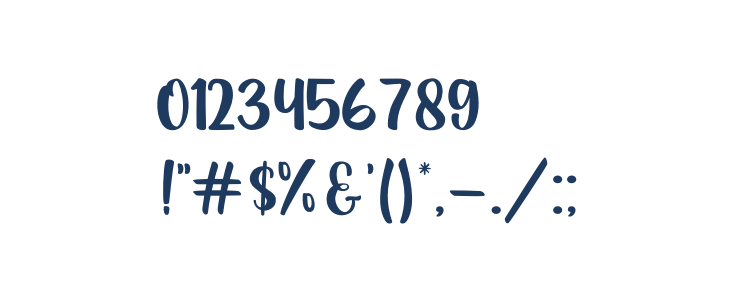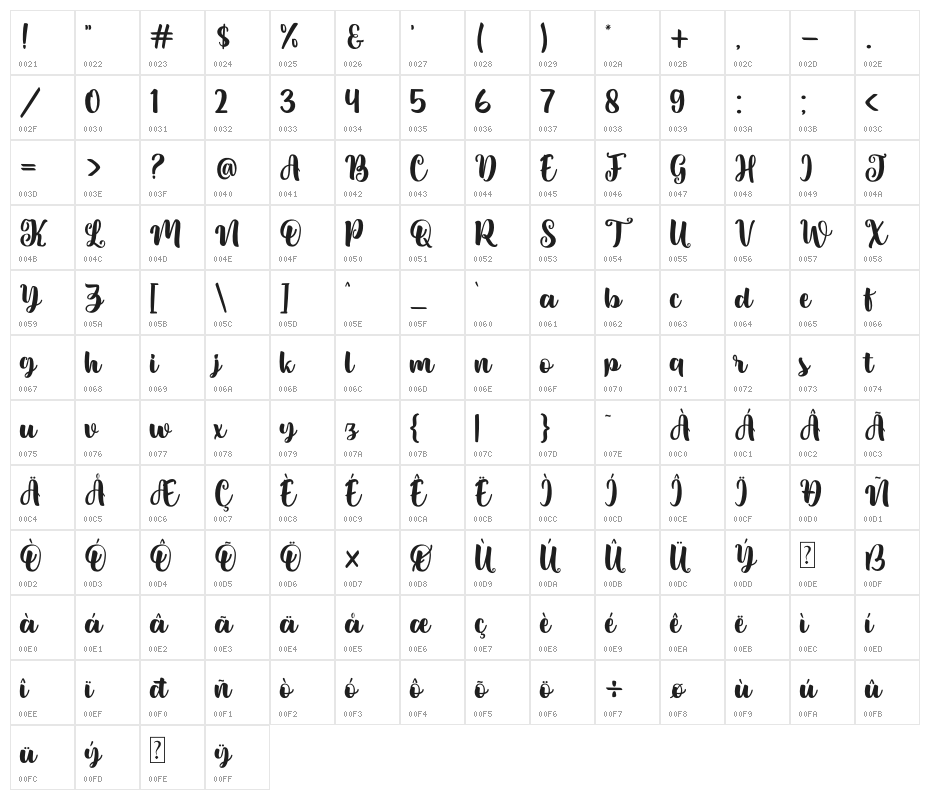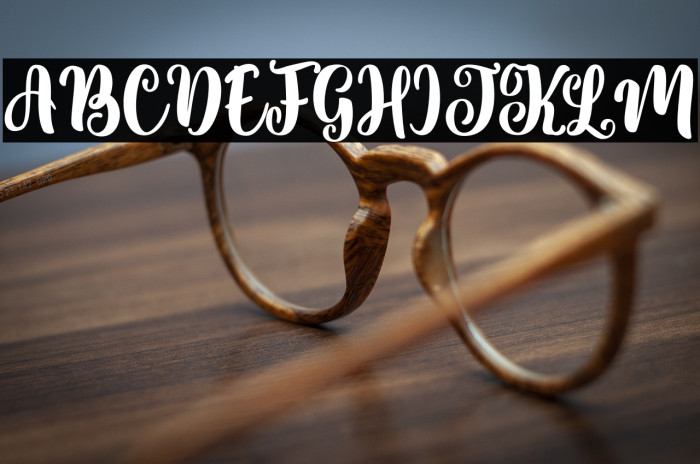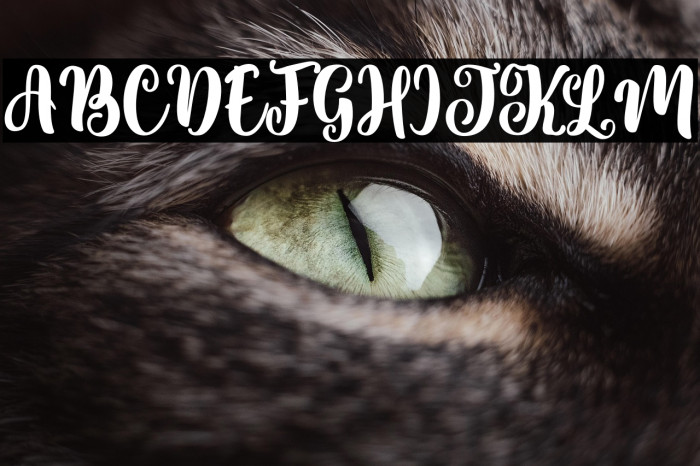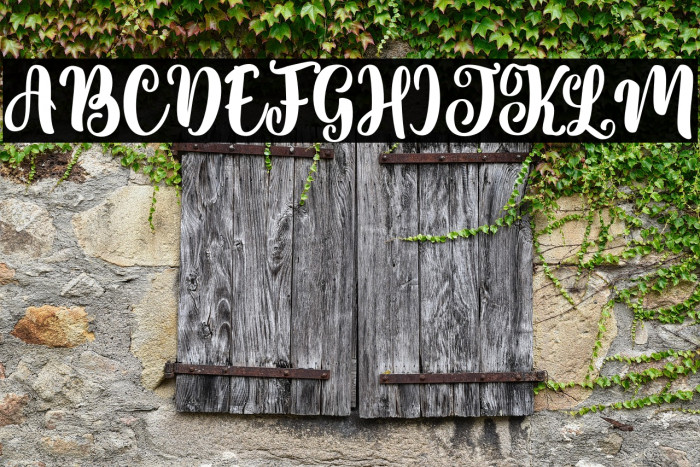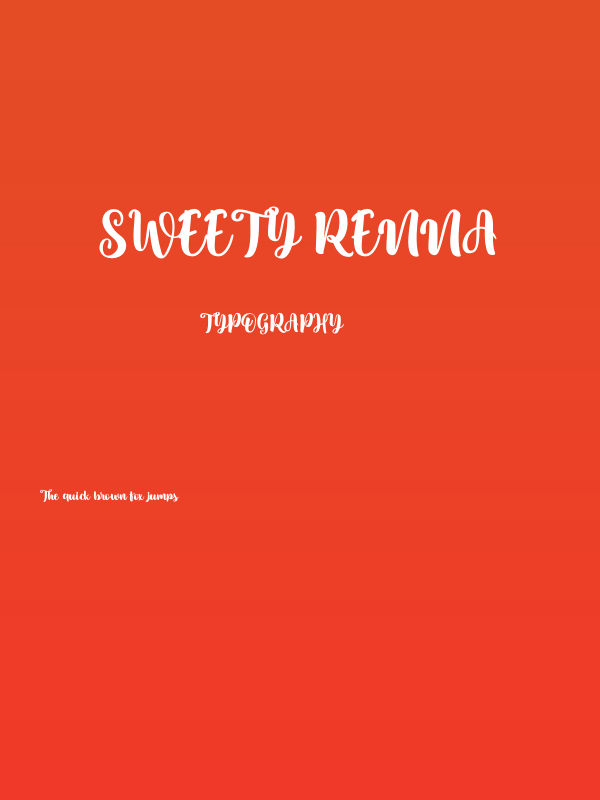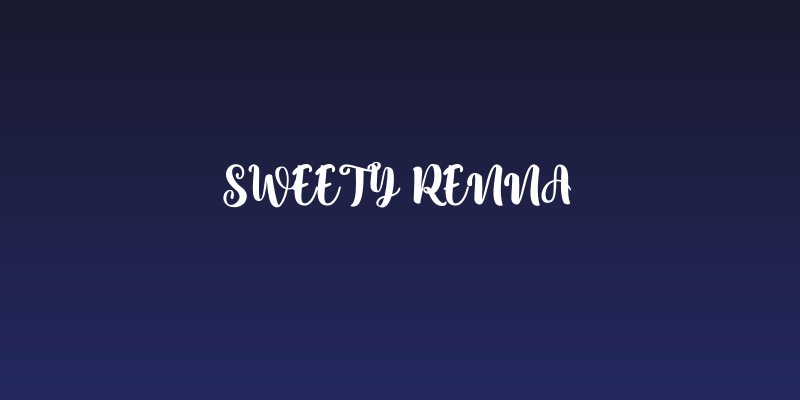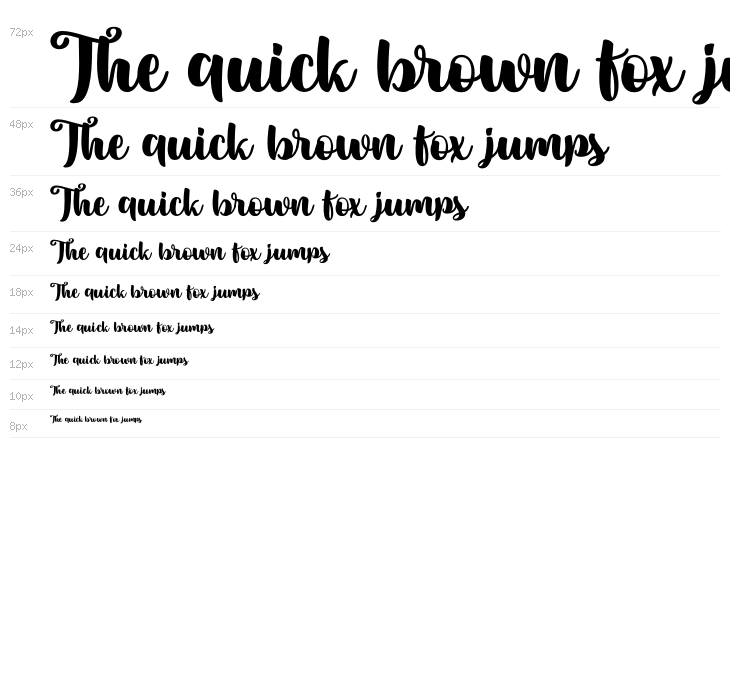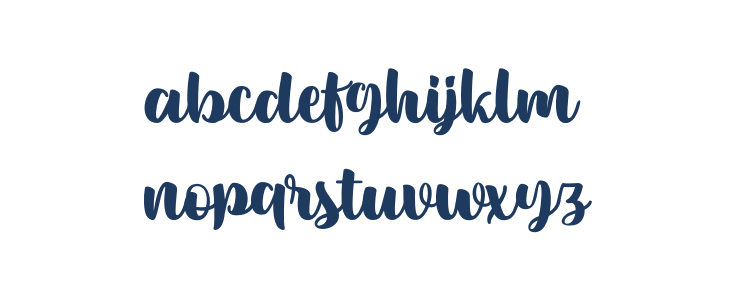
Sweety Renna Font
Sweety Renna Description
This font features a playful and whimsical script style with bold, flowing strokes. The characters are interconnected with smooth curves and loops, giving it a lively and dynamic appearance. The uppercase letters are ornate, with decorative swirls that add a touch of elegance. The lowercase letters maintain a consistent flow, enhancing readability while retaining a charming aesthetic. Numbers and special characters are designed to match the overall style, ensuring a cohesive look across all text elements. This font is perfect for projects that require a personal and friendly touch, such as invitations, greeting cards, and branding materials.